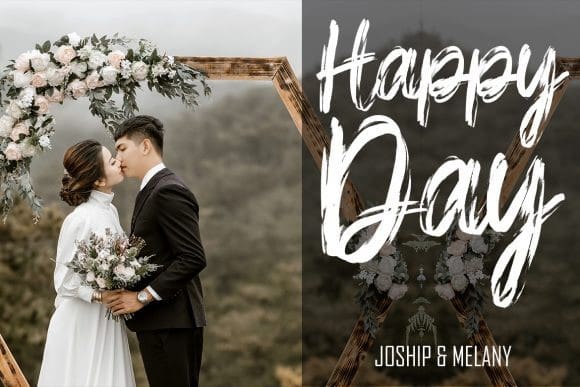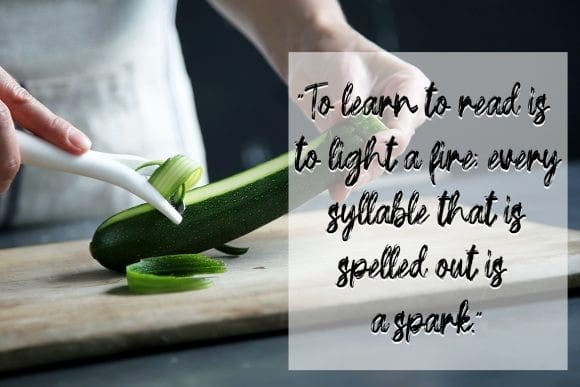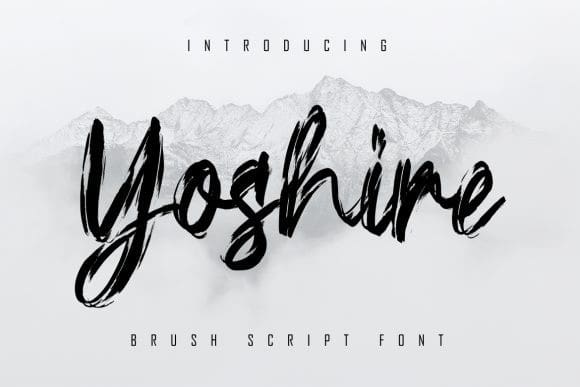
Yoshire Brush Font
Yoshire Brush Font is a rough textured, brushed handwritten font. No matter the topic, this font will be an incredibly asset to your fonts’ library, as it has the potential to elevate any creation.